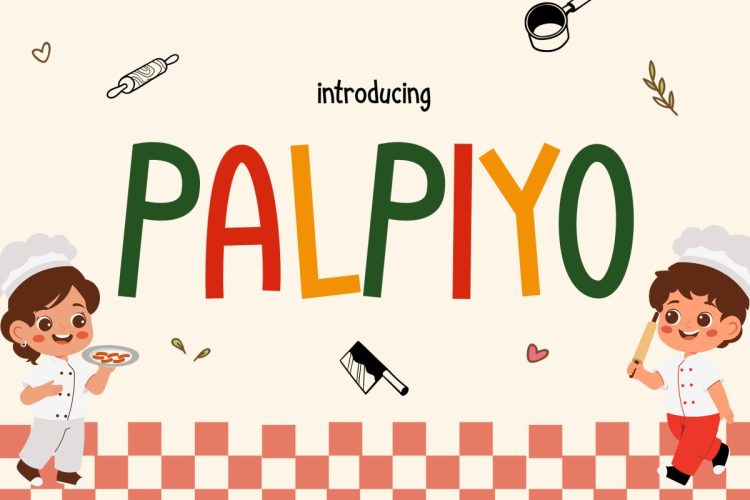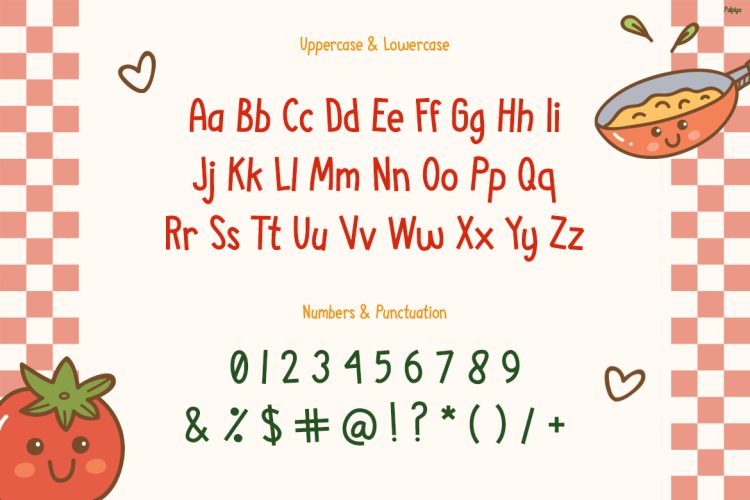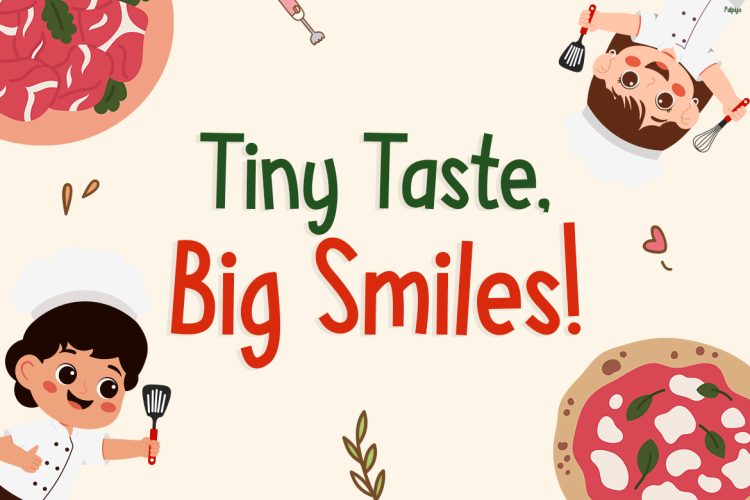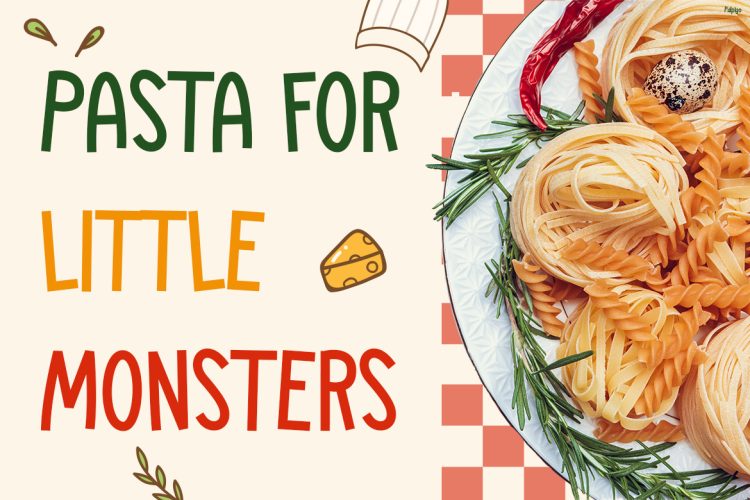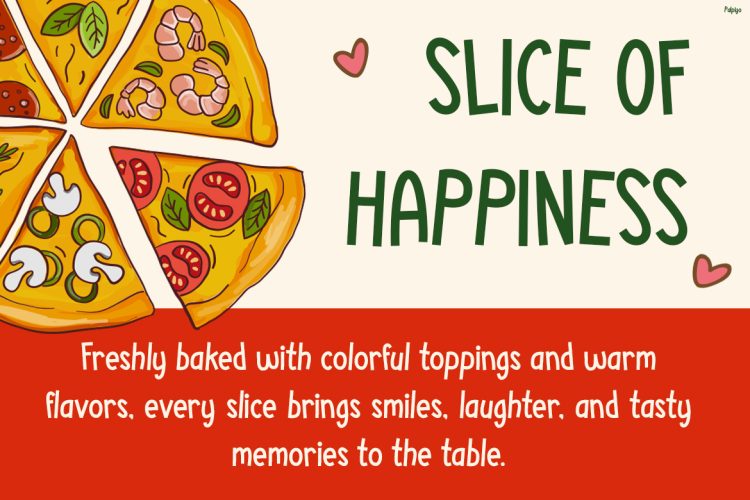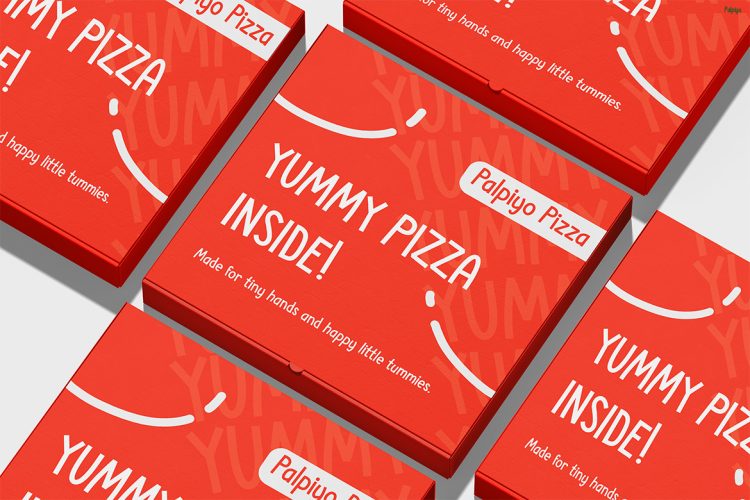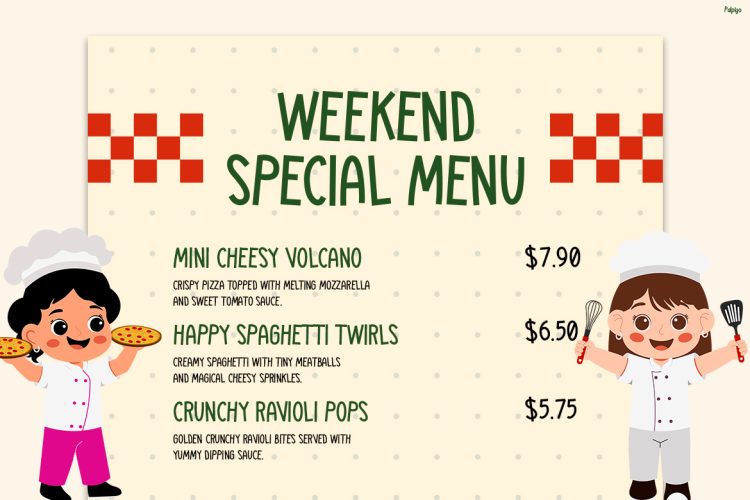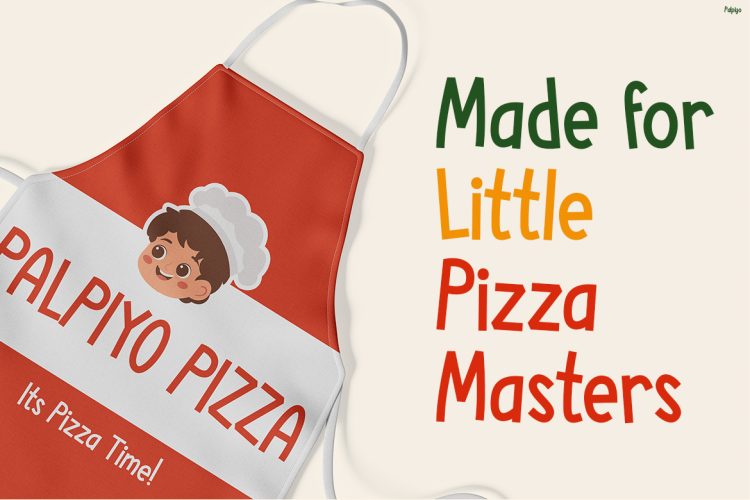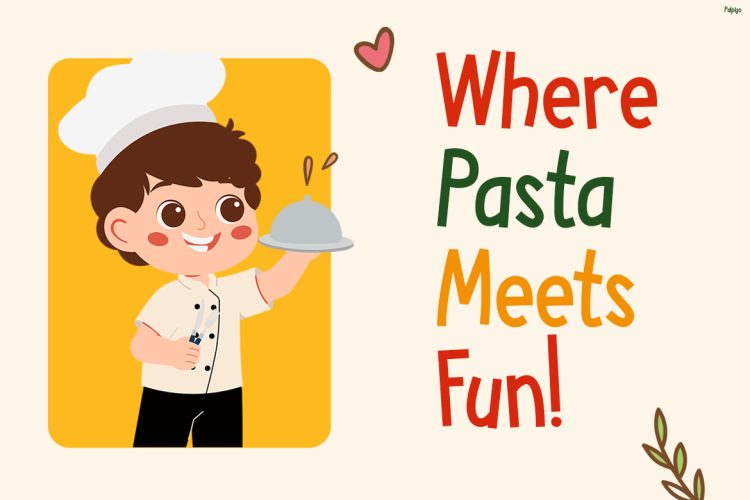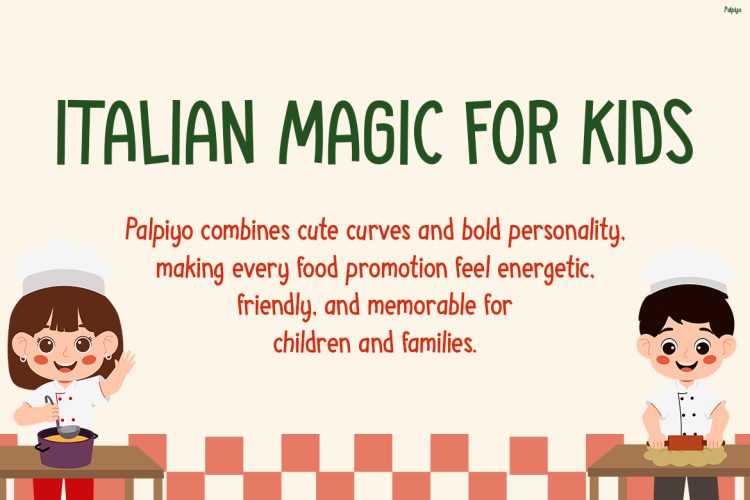
Kids Font Palpiyo โ Playful Food Font Full of Happy Italian Vibes
Kids Font Palpiyo is a fun and cheerful display font designed to bring playful energy into every food-themed design. With its hand-drawn letterforms, colorful personality, and cute kid-friendly style, this font instantly creates a warm and joyful atmosphere. Moreover, the rounded character shapes make every headline feel more friendly, lively, and approachable. In addition, the playful typography keeps your text highly readable, so your designs stay eye-catching across both digital and print media. Because of its adorable food-inspired aesthetic, Kids Font Palpiyo works perfectly for pizza branding, kids restaurant promotions, cafรฉ menus, and fun educational content. Furthermore, the quirky handwritten style helps every layout feel more expressive and memorable. At the same time, the energetic visual vibe adds a charming and creative touch that audiences instantly enjoy.
Why Kids Font Palpiyo Looks So Fun
Palpiyo combines playful handwritten typography with cheerful Italian food vibes. As a result, every word feels energetic, cute, and full of personality. Not only does the font create a joyful atmosphere, but it also enhances the visual appeal of your layouts with its fun and colorful appearance. Additionally, the clean readability makes it ideal for menus, posters, packaging, and social media content. Meanwhile, the whimsical character style keeps your branding looking modern and engaging. Whether you are designing pizza promotions, kids cafรฉ graphics, or playful food packaging, this font helps every project feel more exciting and delicious.
- Pizza and pasta branding
- Kids restaurant menus
- Food packaging designs
- Cafรฉ promotions
- Social media graphics
- Childrenโs event posters
- Educational food projects
- Merchandise and apparel
- Creative flyers
- Fun branding content
Make Every Design Feel Tastier